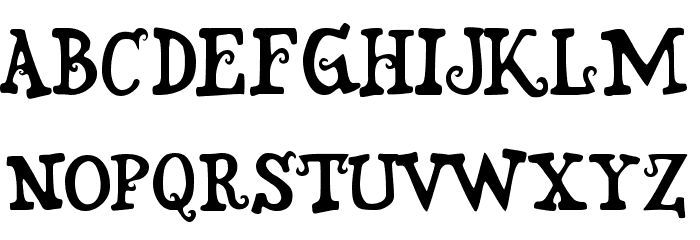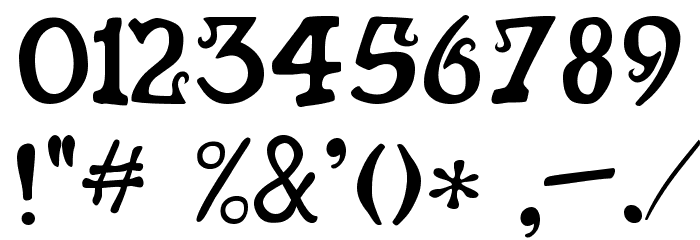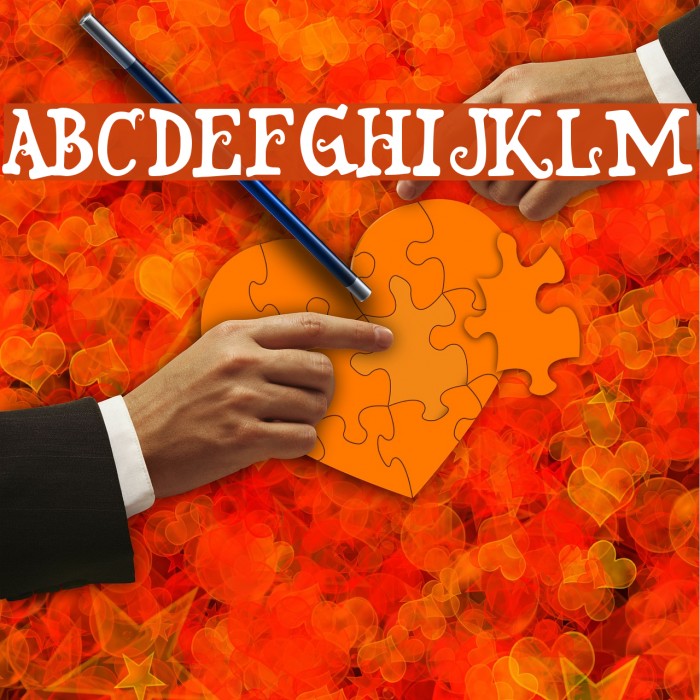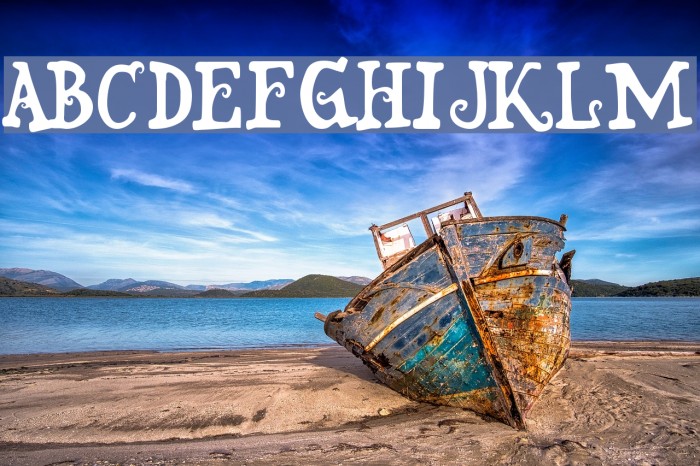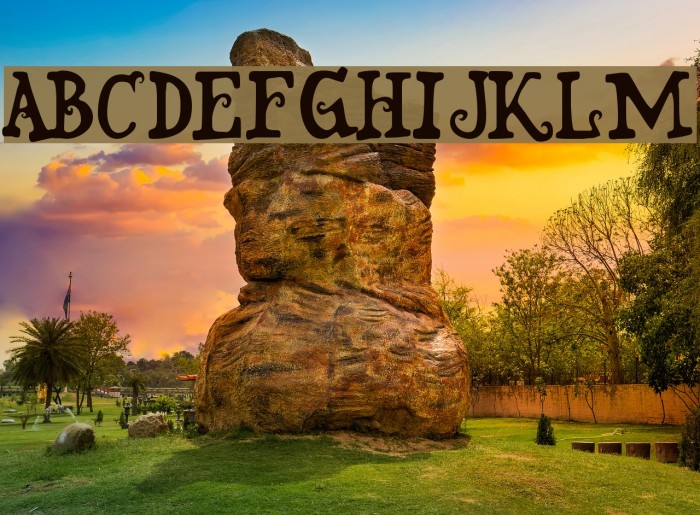
Snidely Font
This font features a whimsical and playful design, characterized by its bold and exaggerated serifs. The letters have a slightly uneven baseline, adding to its quirky and informal appearance. The strokes are thick and consistent, providing a strong visual impact. The overall style is reminiscent of vintage circus or carnival themes, with a touch of humor and lightheartedness. The numbers and special characters maintain the same playful aesthetic, ensuring a cohesive look across all elements.
A whimsical, bold serif font with a playful, vintage style.
- Proposed Projects: Ideal for children's books, playful branding, circus-themed posters, and vintage-inspired designs.
- Overall Style: Vintage, Decorative